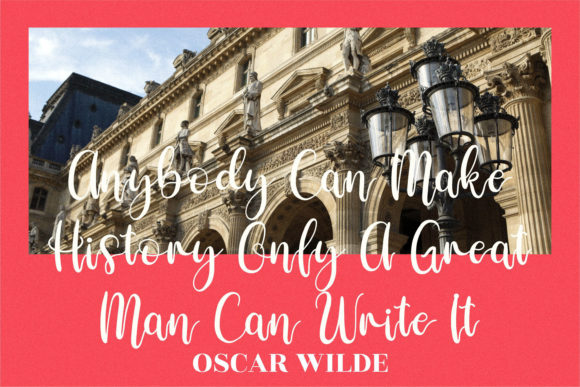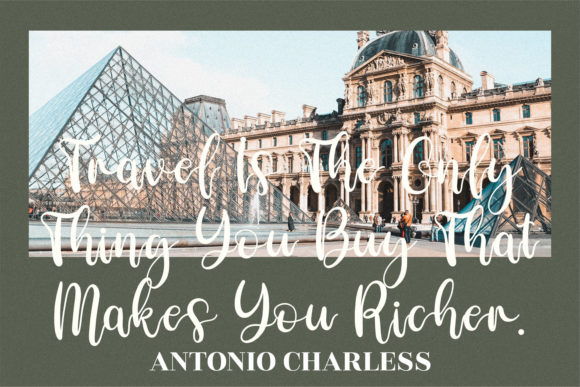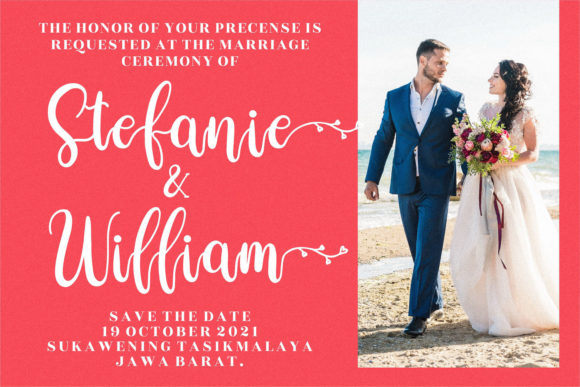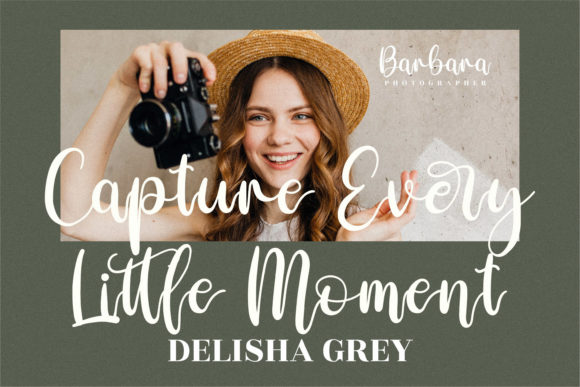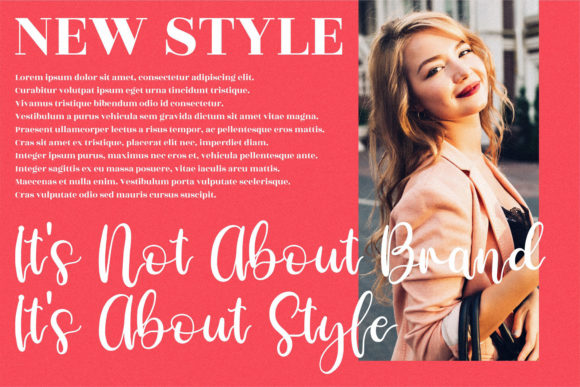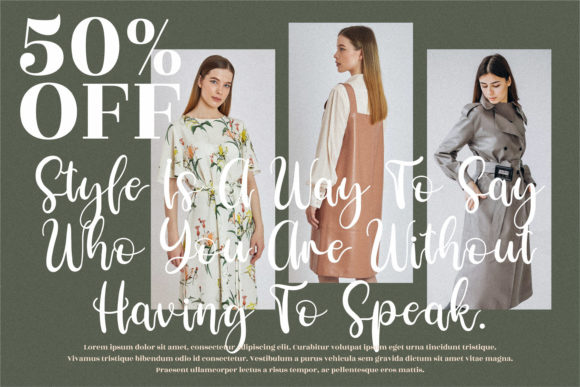
Introducing Emely Love Font: A Delicate and Elegant Handwritten Font
Are you a designer or crafter looking for a font that exudes elegance and sophistication? Look no further than Emely Love Font. This beautiful handwritten font is perfect for a variety of creative projects, from wedding invitations and stationery to branding and packaging.
A Delicate and Elegant Handwritten Font
Emely Love Font is a delicate and elegant handwritten font that is sure to capture the hearts of designers and crafters alike. Its distinct and well-balanced letters make this font a masterpiece, perfect for adding a touch of whimsy and romance to any project. The font’s elegant strokes and flowing curves create a sense of movement and fluidity, making it perfect for designs that require a touch of sophistication.
One of the best features of Emely Love Font is that it is PUA (Private Use Area) encoded. This means that you can access all of the glyphs and swashes with ease, giving you complete creative control over your designs. With PUA encoding, you can easily access the font’s extensive range of characters, including ligatures, alternates, and swashes, allowing you to create unique and customized designs that stand out from the crowd.
Emely Love Font is perfect for designers and crafters who want to add a touch of elegance and sophistication to their projects. Whether you’re creating wedding invitations, stationery, or branding materials, this font is sure to impress. Its delicate and elegant strokes make it perfect for designs that require a touch of whimsy and romance, while its PUA encoding makes it easy to use and customize.
What Can You Use Emely Love Font For?
Emely Love Font is a versatile font that can be used for a wide range of creative projects, including:
- Branding and packaging
- Signage and displays
- Digital graphics and social media assets
- Paper crafts and DIY projects
Why Choose Emely Love Font?
There are many reasons why you should choose Emely Love Font for your next creative project. Here are just a few:
- Elegant and sophisticated design: Emely Love Font is a beautifully designed font that exudes elegance and sophistication.
- PUA encoded for easy access: With PUA encoding, you can easily access all of the font’s glyphs and swashes, giving you complete creative control over your designs.
- Versatile and flexible: Emely Love Font can be used for a wide range of creative projects, from wedding invitations to branding materials.
In conclusion, Emely Love Font is a beautiful and elegant handwritten font that is perfect for designers and crafters who want to add a touch of sophistication and whimsy to their projects. With its PUA encoding and extensive range of glyphs and swashes, this font is easy to use and customize, making it perfect for a wide range of creative projects. Whether you’re creating wedding invitations, branding materials, or digital graphics, Emely Love Font is sure to impress.